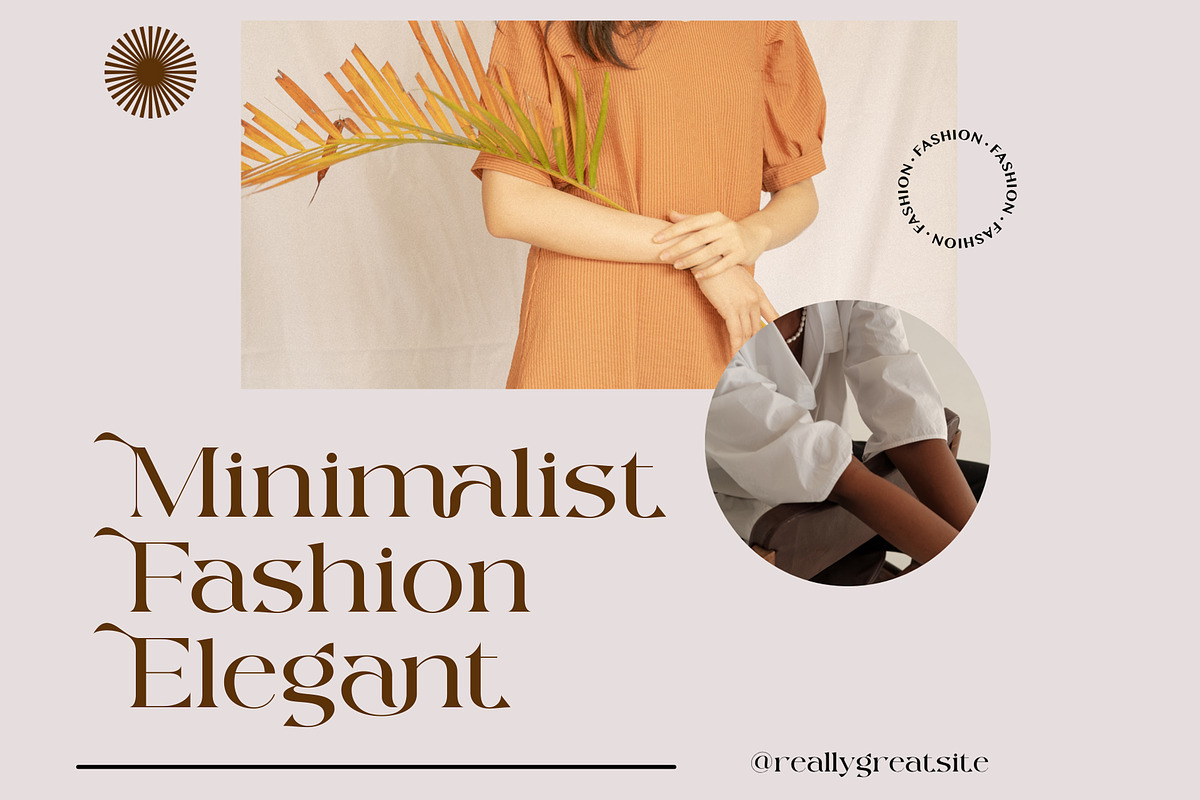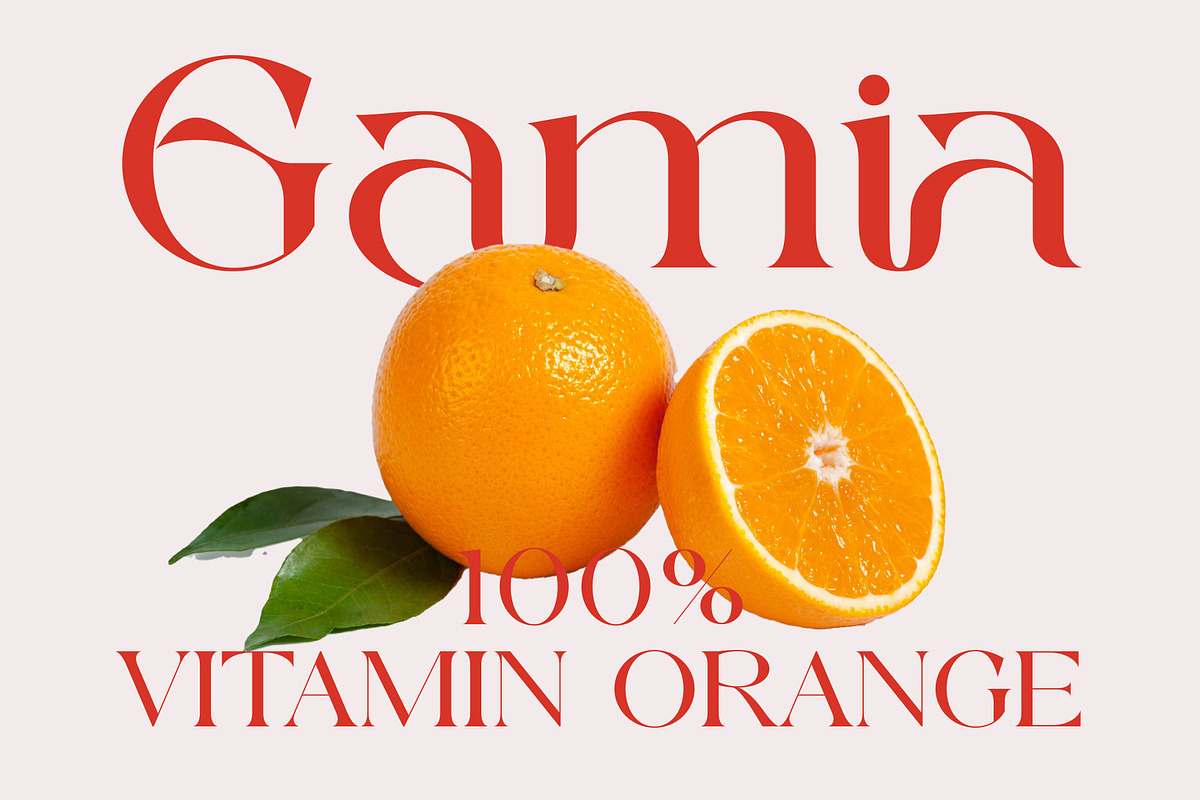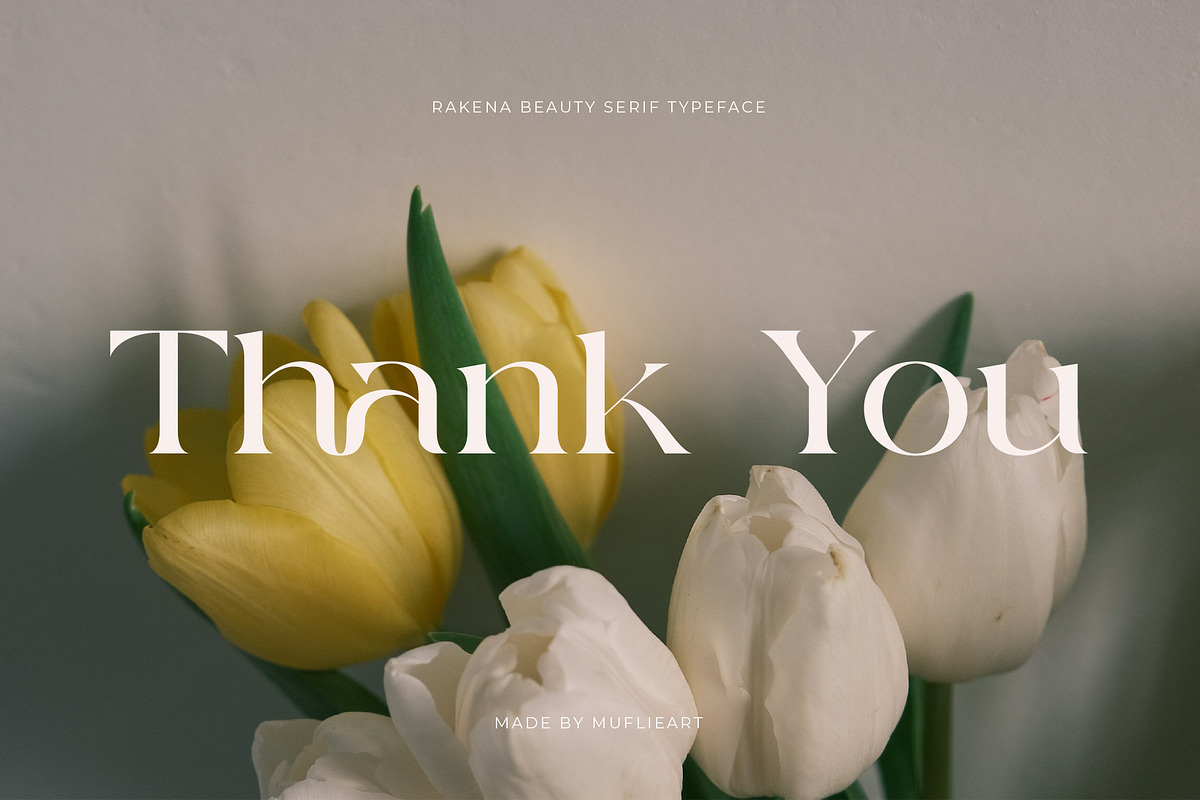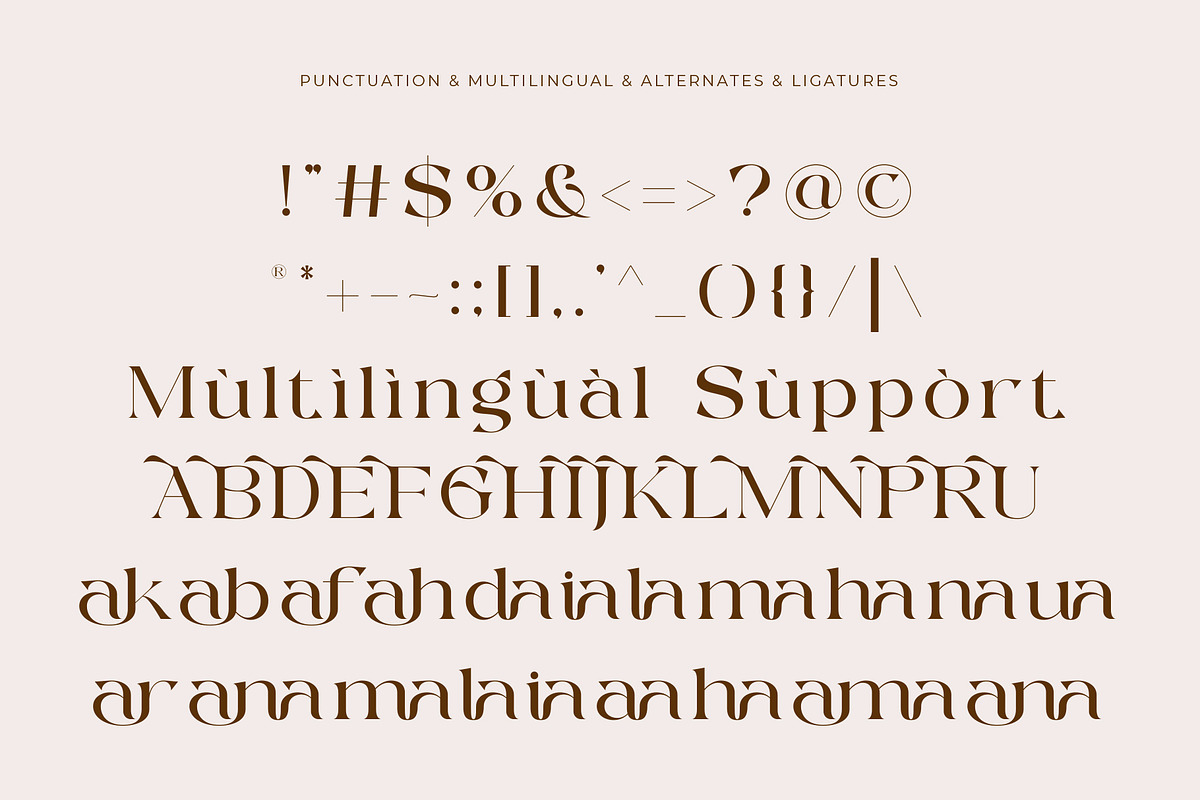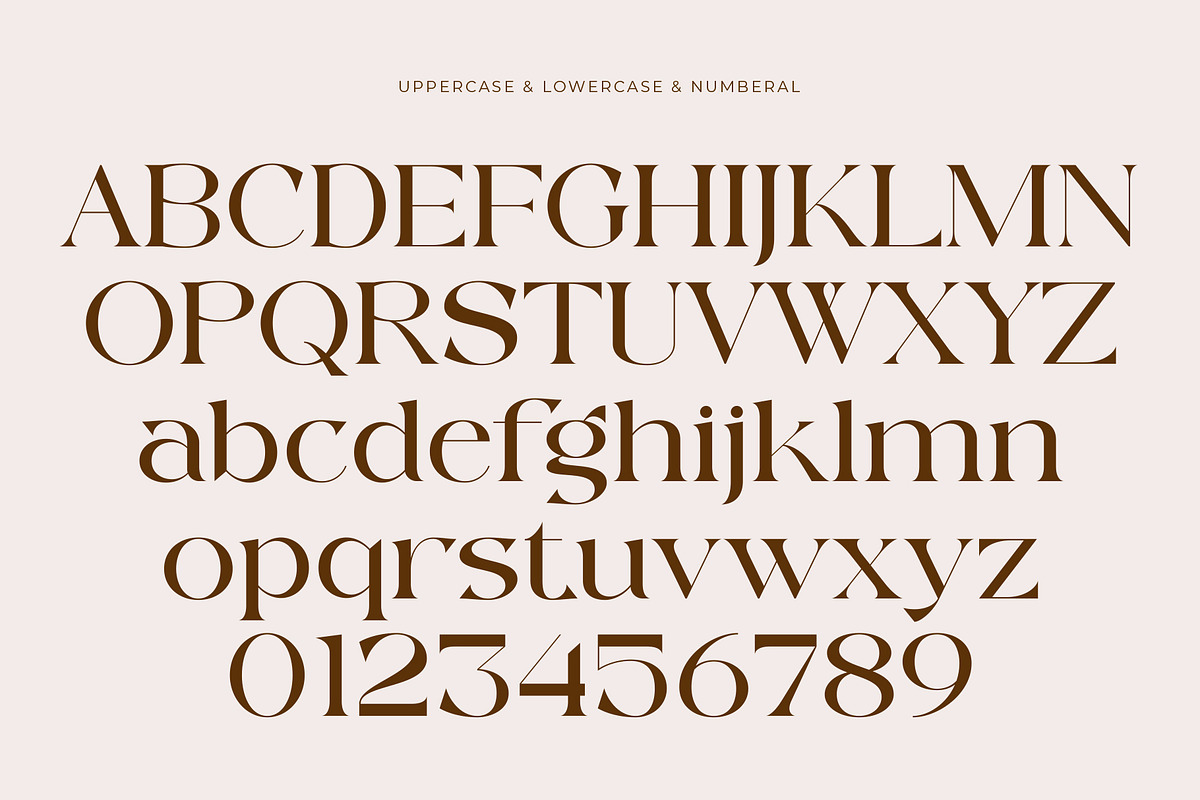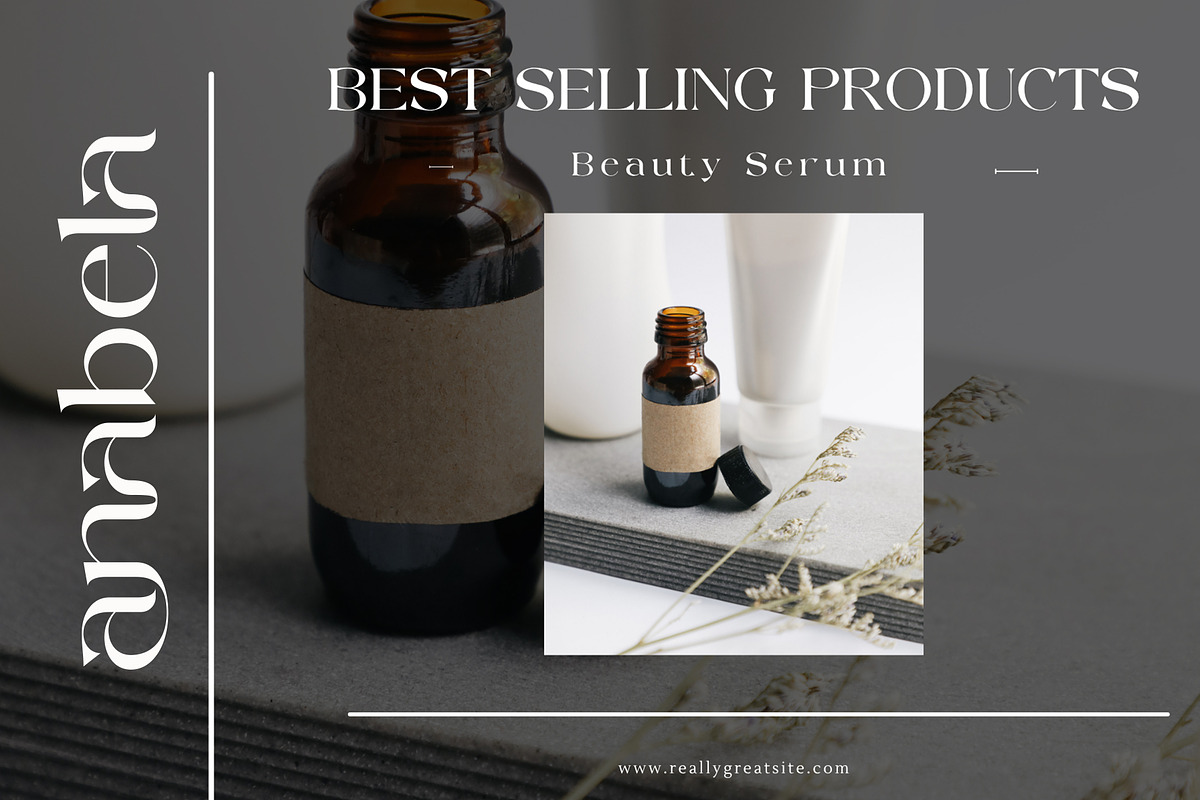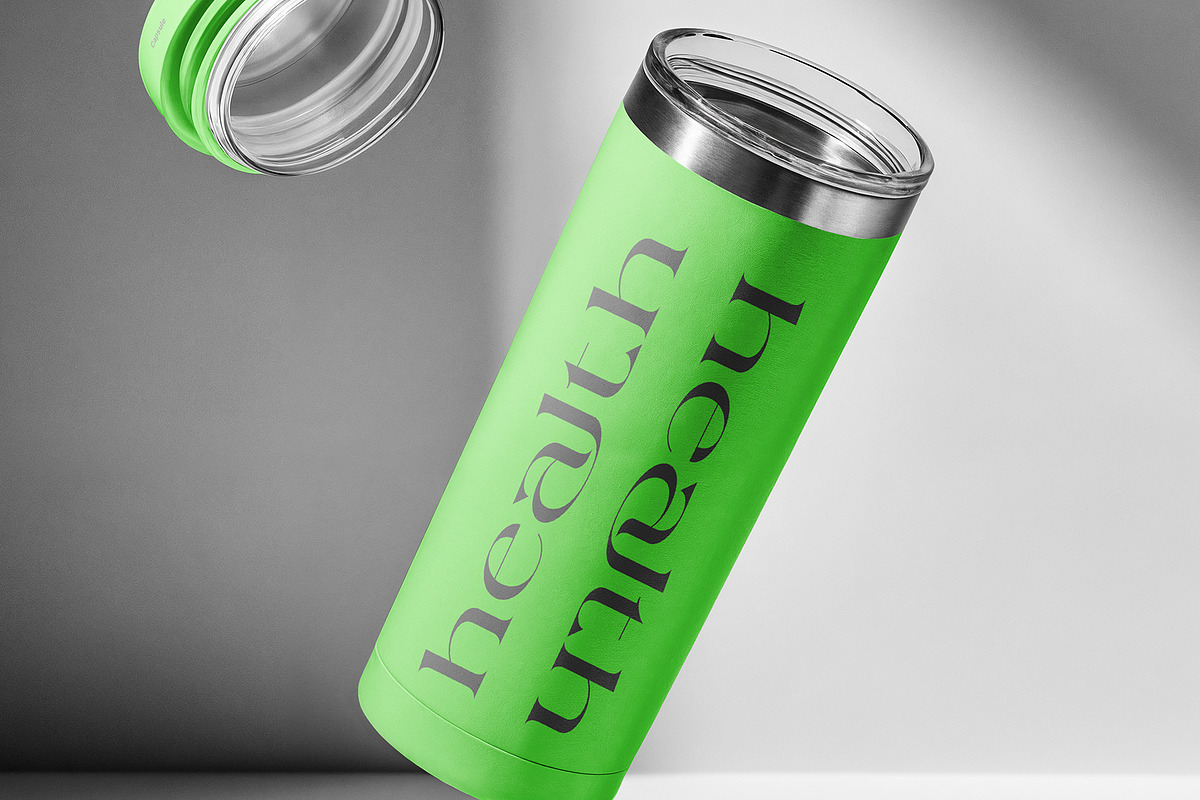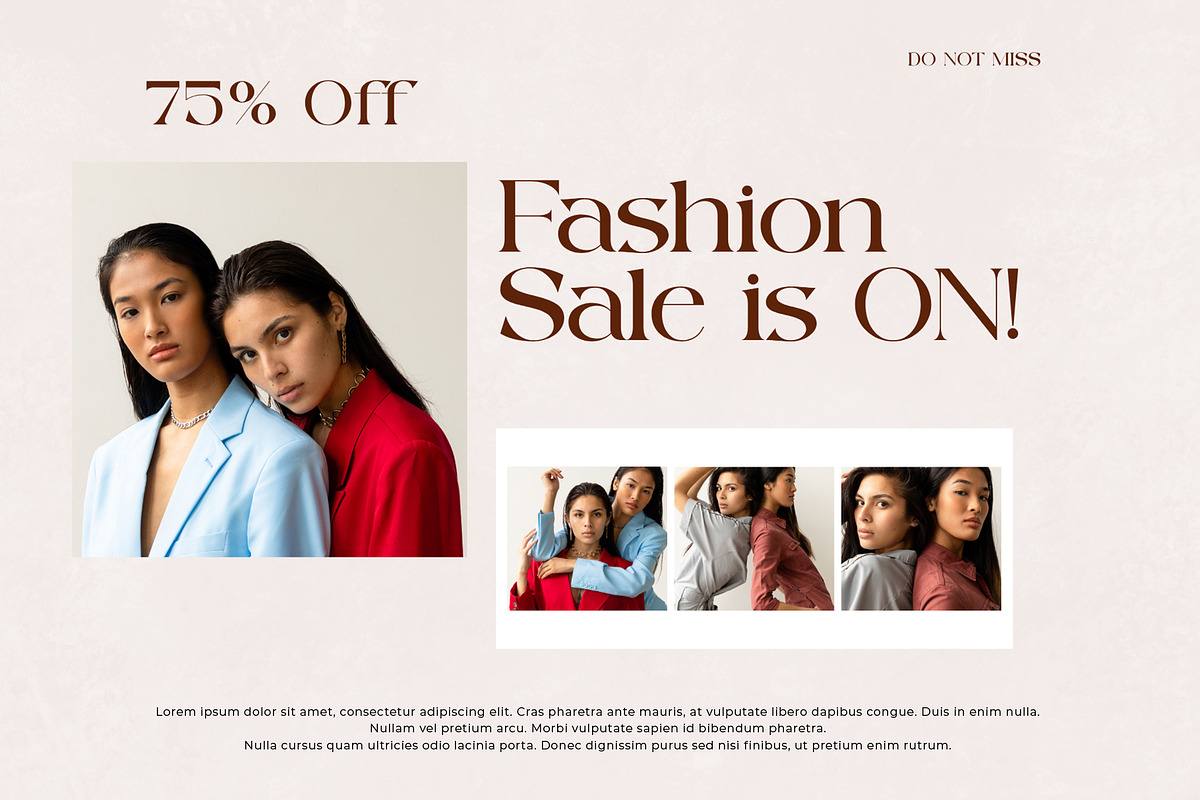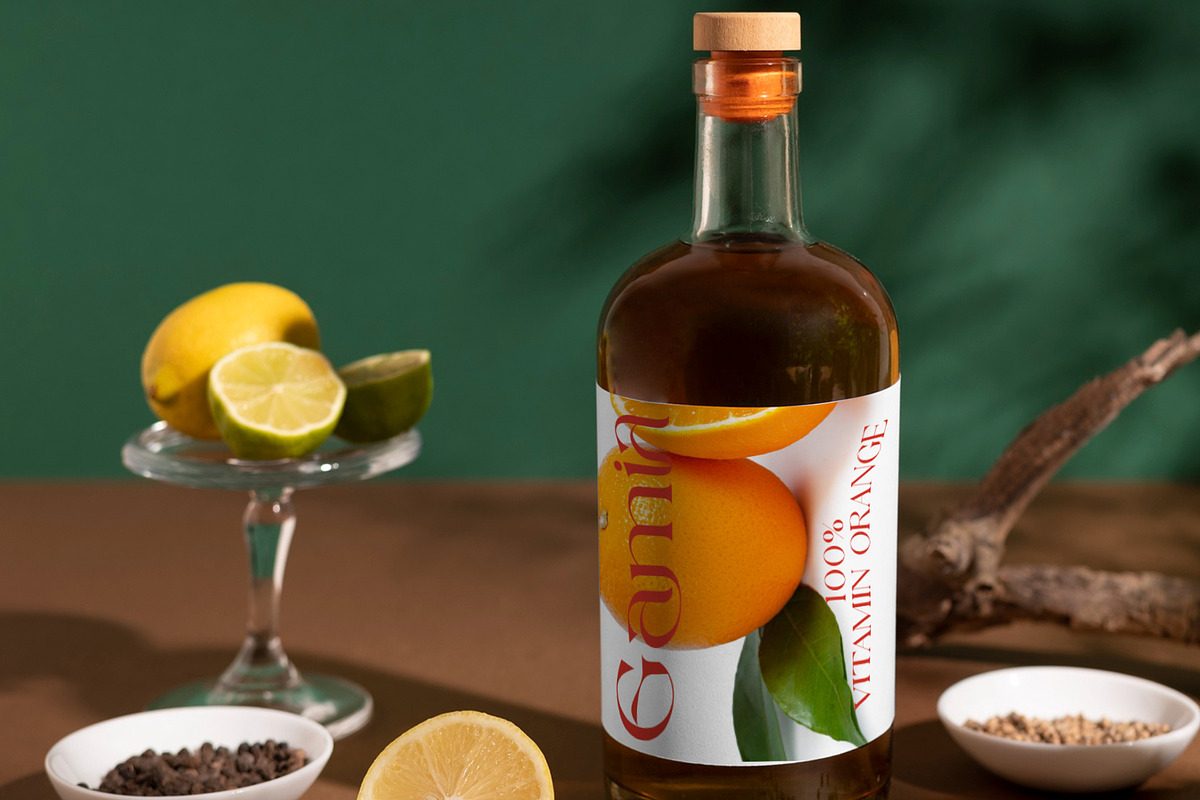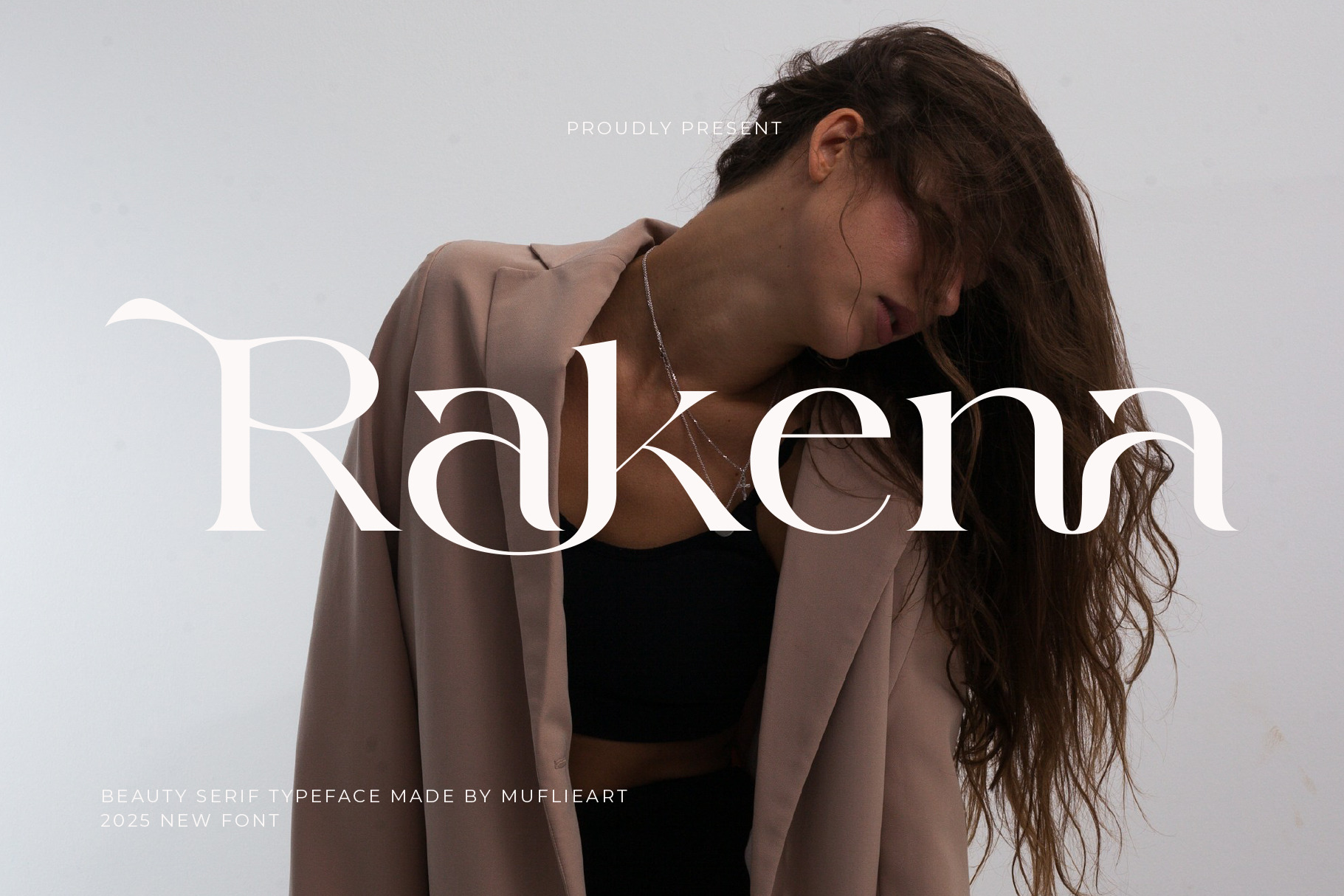
Rakena - Beauty Serif Typeface
Introducing Rakena the elegant, beautiful, and modern Serif Typeface. With its modern and minimalist look, Rakena brings a luxurious, classy, and clean style to your projects such as websites, modern logos, brand identities, social media quotes, wedding stationery, magazines, and more!
Rakena features unique and classy capital letters A to Z and also comes with unique alternates and ligatures making Rakena a beautiful font that can be customized for various projects and jobs you want.